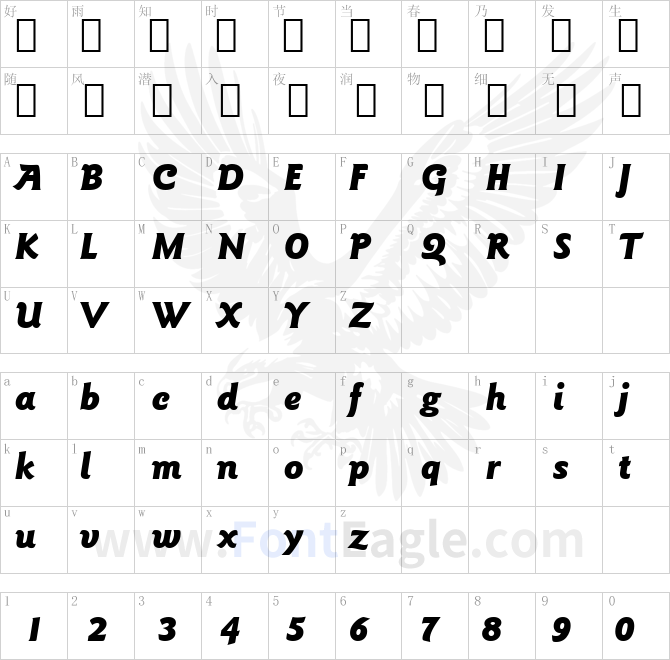
- Font name:GoudySans BlkIt BT
- Font Subfamily:Black Italic
- Font Subfamily ID:ITC Goudy Sans Black Italic, Humanist 730
- Font Full Name:Goudy Sans Black Italic BT
- Postscript:GoudySansITCbyBT-BlackItalic